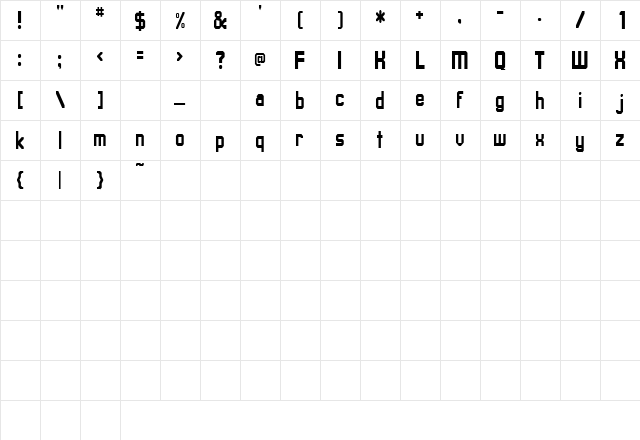
Marathon 8 Regular
Design Context for Marathon 8 Typeface
Marathon 8 takes a measured approach to typography — its balanced proportions and neutral character make it a reliable workhorse for both digital and print work.